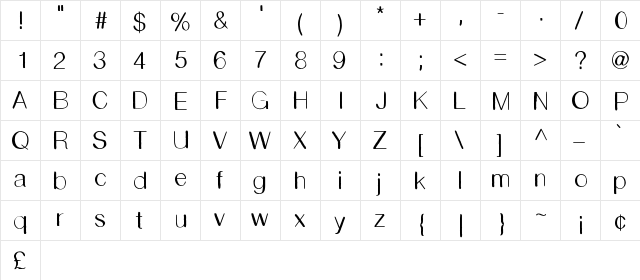
Shmooper Medium
Design Context for Shmooper Typeface
Shmooper takes a measured approach to typography — its balanced proportions and neutral character make it a reliable workhorse for both digital and print work.
Pro Tip: Pair Shmooper with a font of contrasting weight or personality to build a more expressive typographic hierarchy.